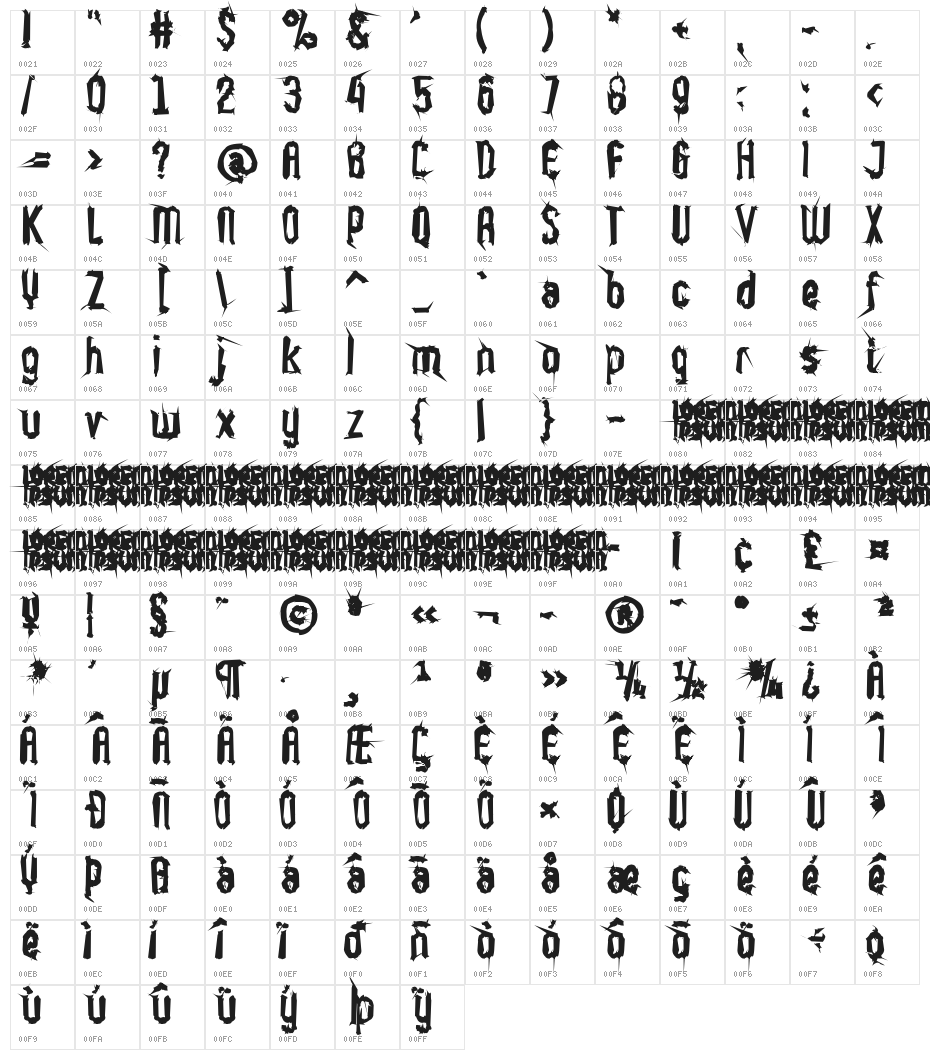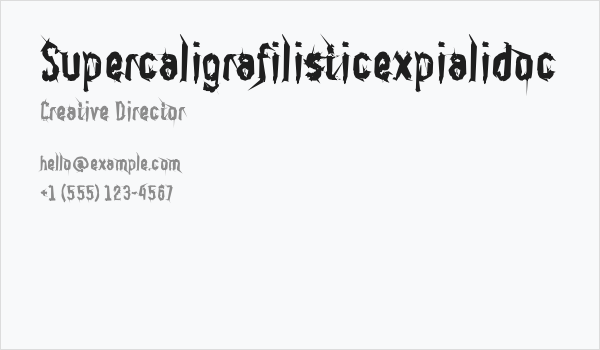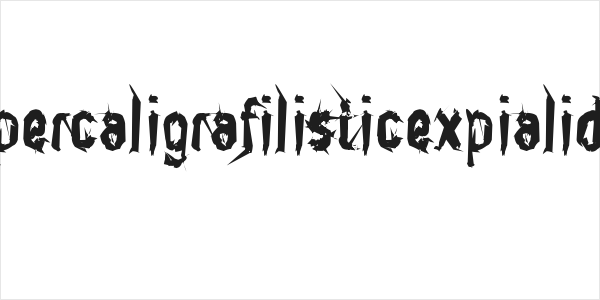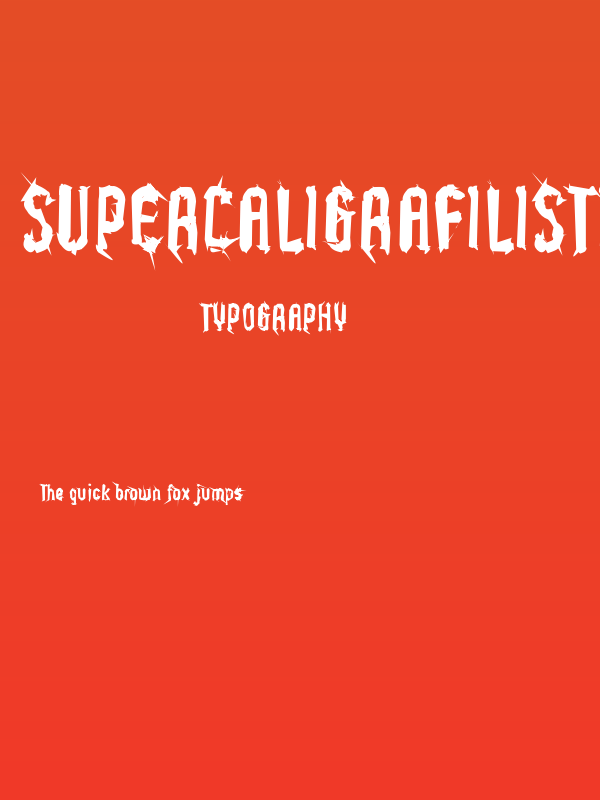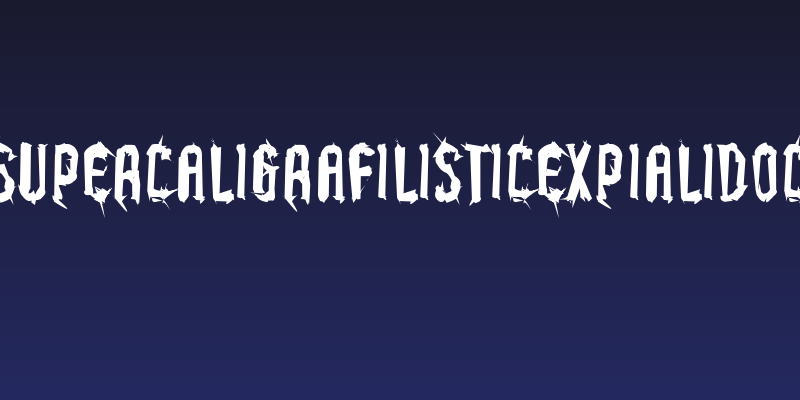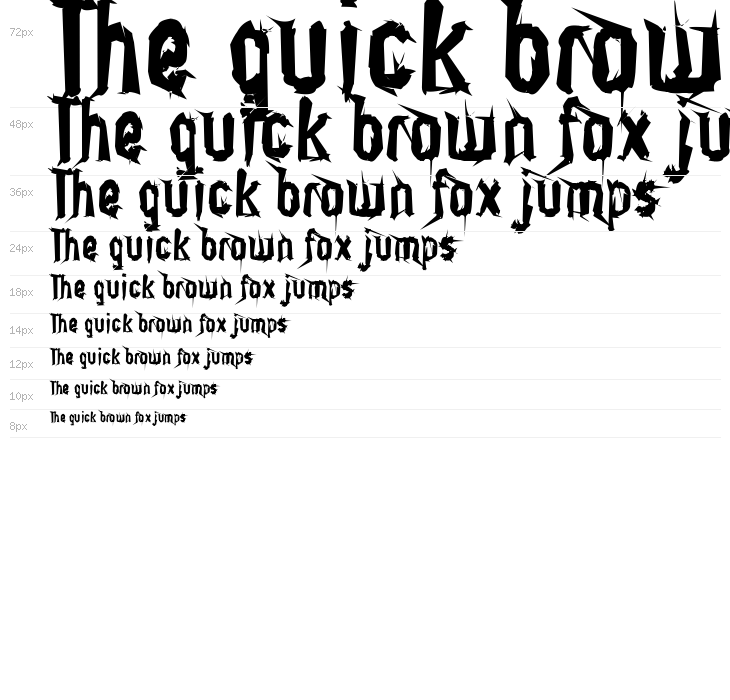
Supercaligrafilisticexpialidoc Font
Supercaligrafilisticexpialidoc Description
This font features a bold, jagged design with sharp, angular edges that give it a distinct, aggressive appearance. The characters are heavily stylized, with irregular shapes and pointed accents that create a sense of movement and energy. The uppercase and lowercase letters maintain a consistent style, while the numbers and special characters complement the overall aesthetic. The font's unique design makes it stand out, with a high contrast in stroke thickness that adds to its dramatic effect. It is well-suited for projects that require a bold, eye-catching typeface.
| Proposed Projects | Ideal for album covers, posters, video game titles, and edgy branding projects. |